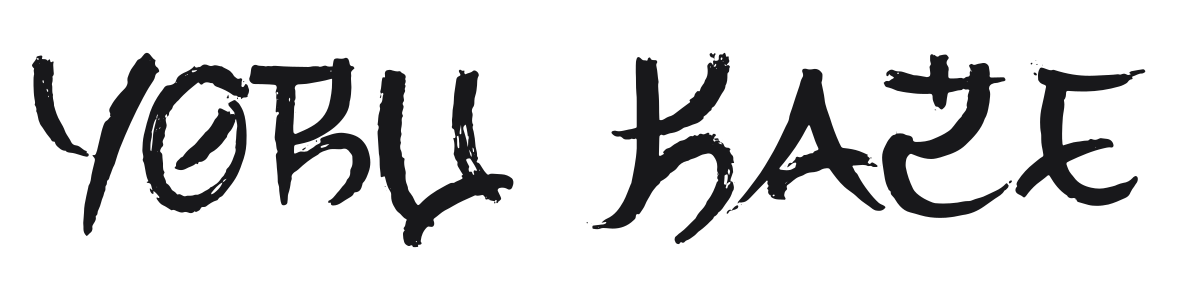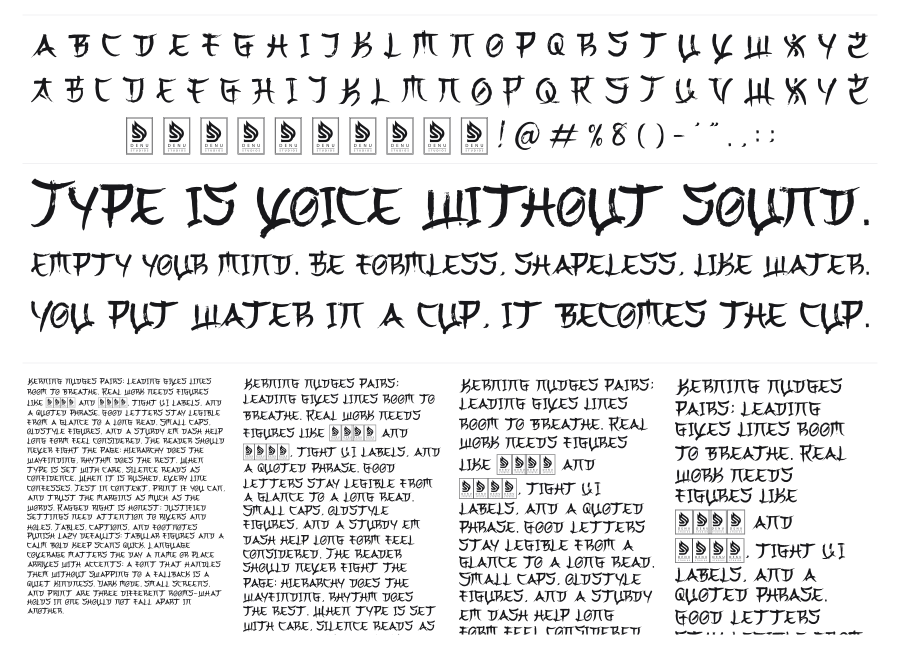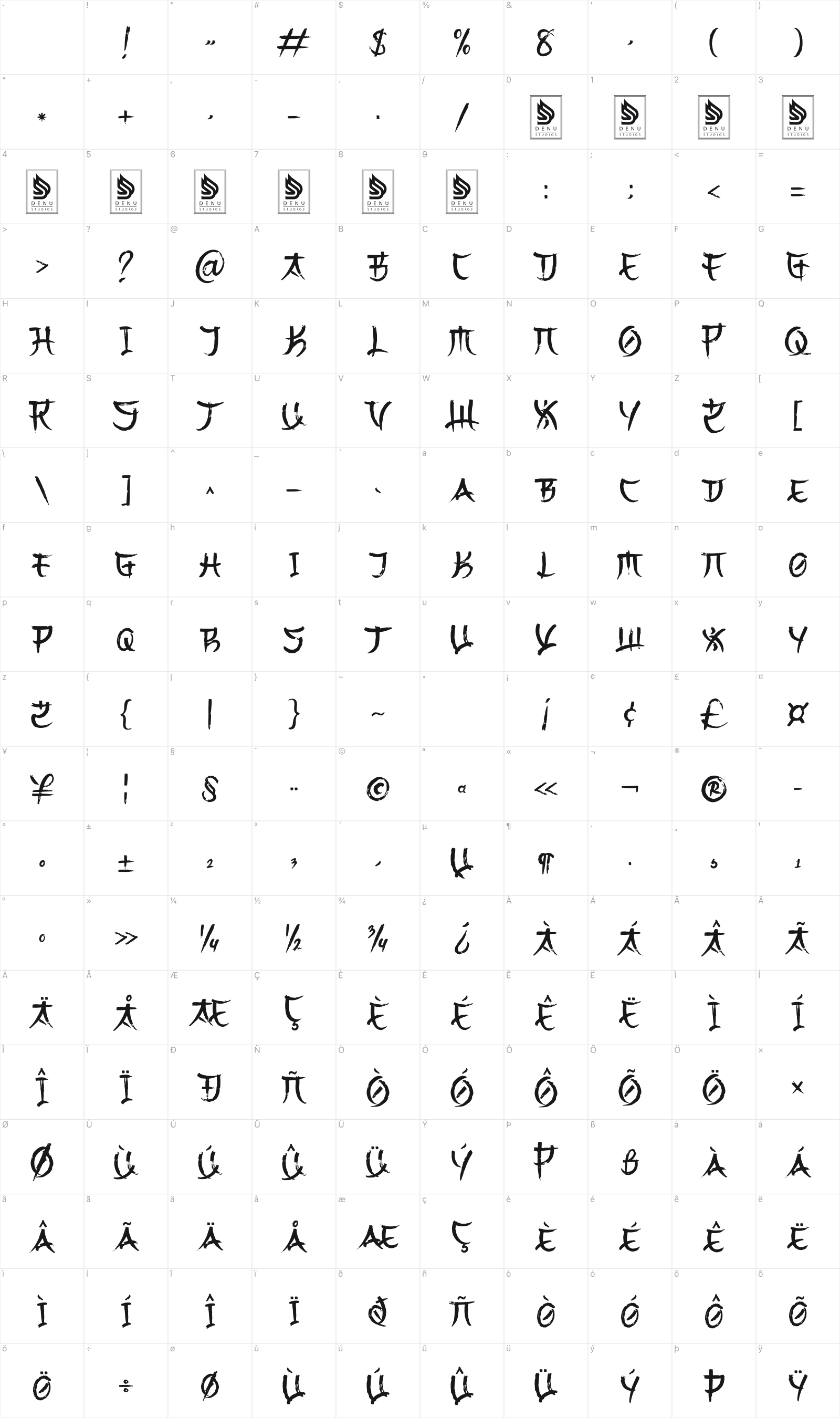
Yoru Kaze
Yoru Kaze is a bold Japanese brush font that translates sumi-e calligraphy energy into Latin characters. Heavy strokes carry visible bristle texture, frayed edges, and ink bleed that make each character feel painted rather than typed. It brings strong cultural atmosphere to logos, packaging, and poster work that needs an East Asian aesthetic.